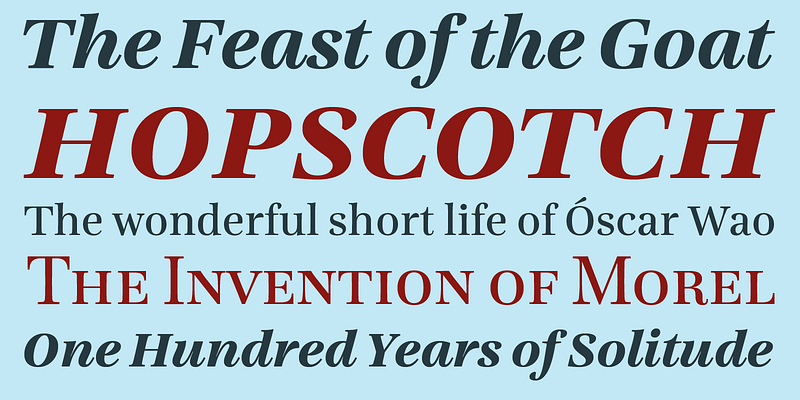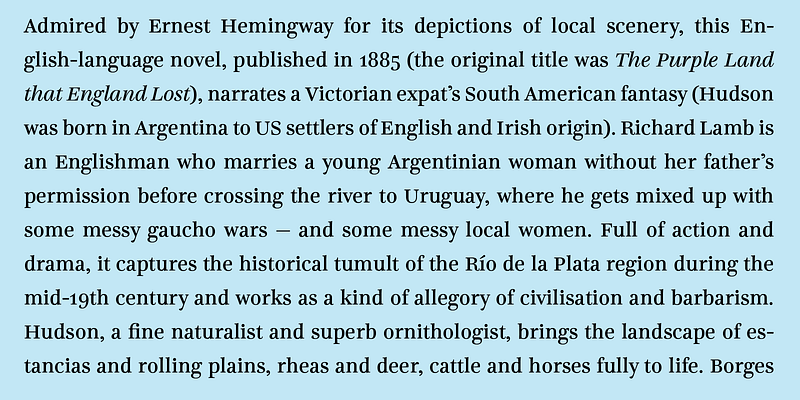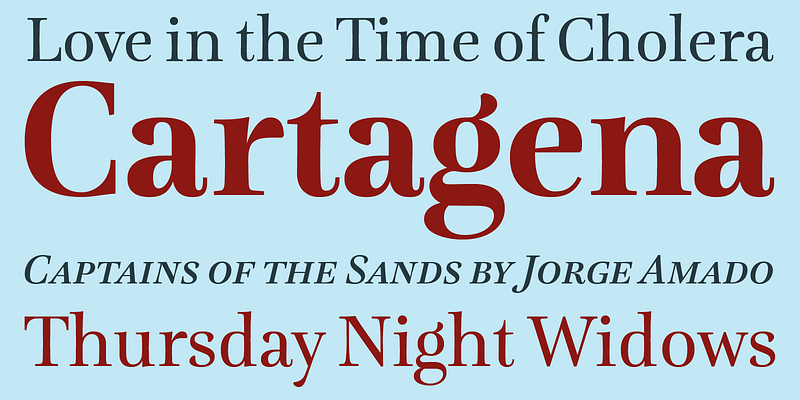
Lavigne is a type-family aimed at publications such as interior design and women magazines – anywhere a touch of distinction is to be desired.
Retype Foundry is a two-person independent digital type foundry based in The Hague. Ramiro Espinoza, who founded the company in 2007, manages it in close collaboration with his partner, editorial designer Paula Mastrangelo. Retype’s catalogue reflects the pair’s interest in editorial design and a keen familiarity with Dutch type history.
Discerning design studios and art directors looking for solid, modern-looking type families will find in Retype a well-crafted and diverse selection of typefaces, many of which have won design awards. The foundry’s work meets even the most exacting requirements for aesthetics, legibility, and originality.